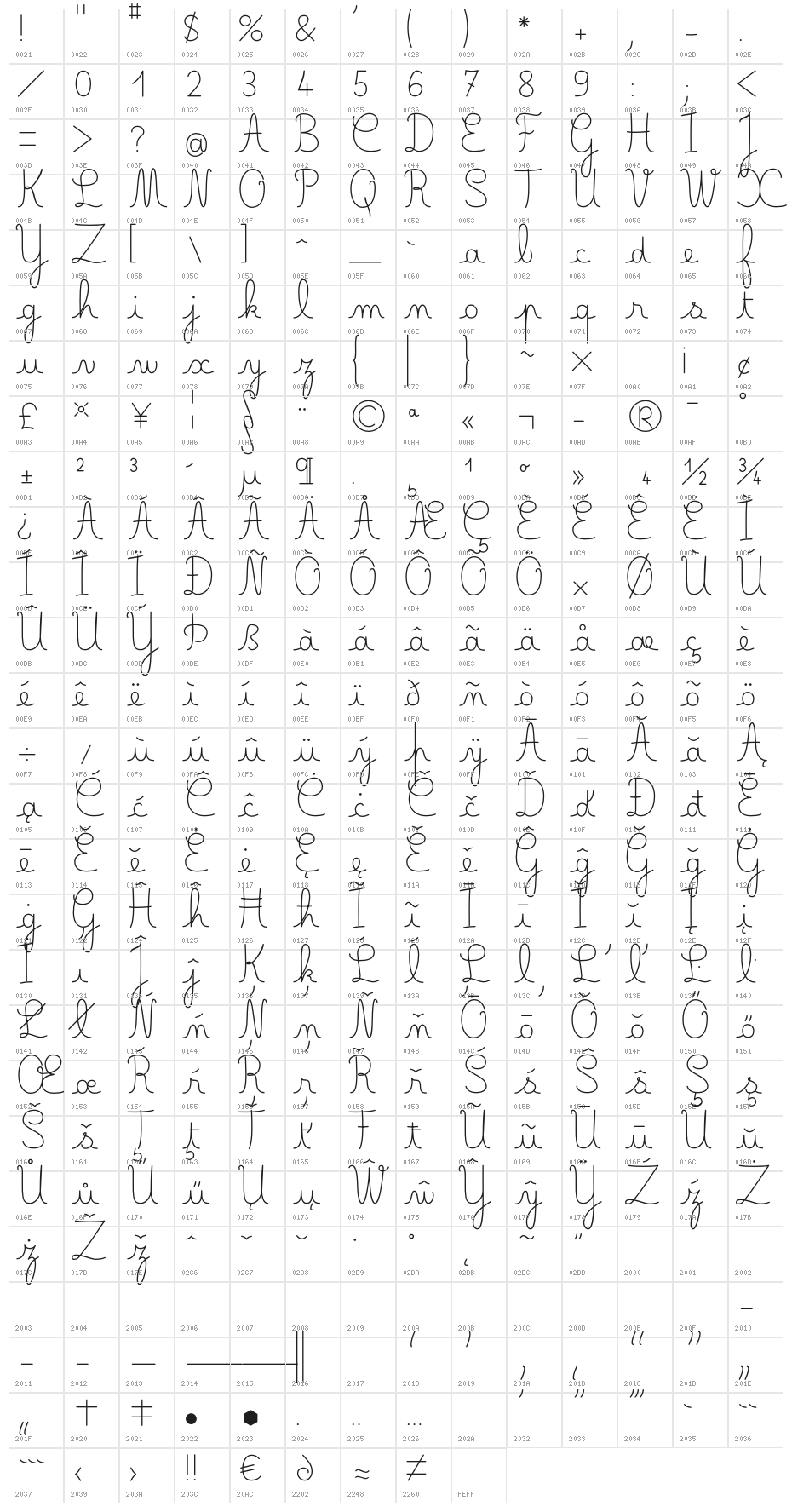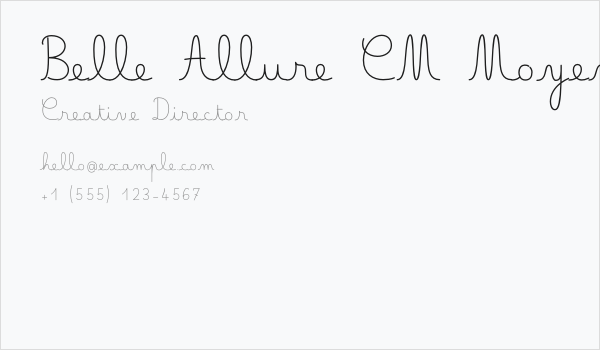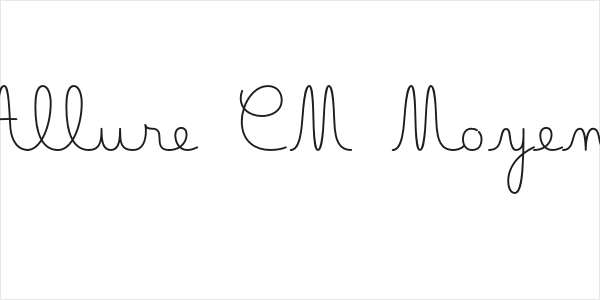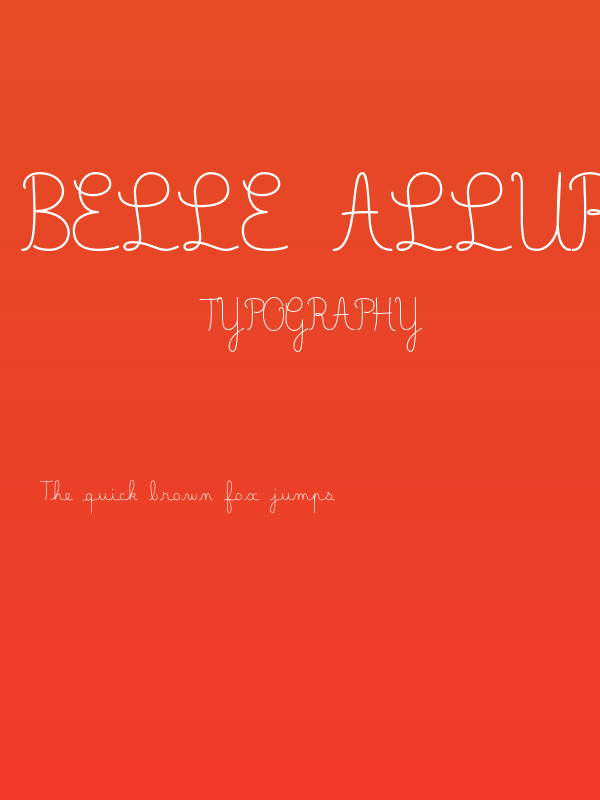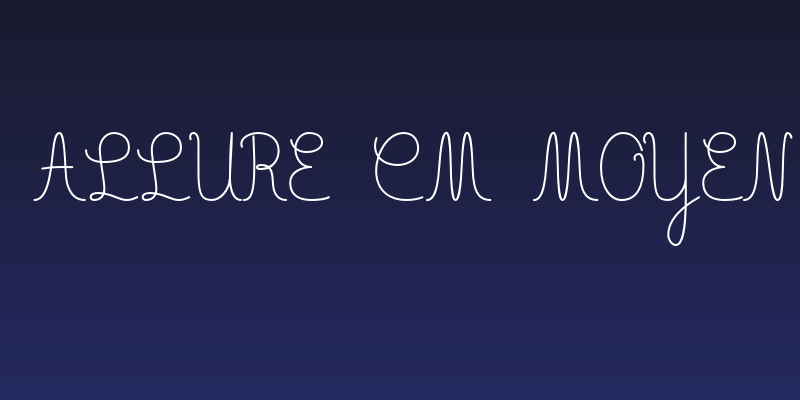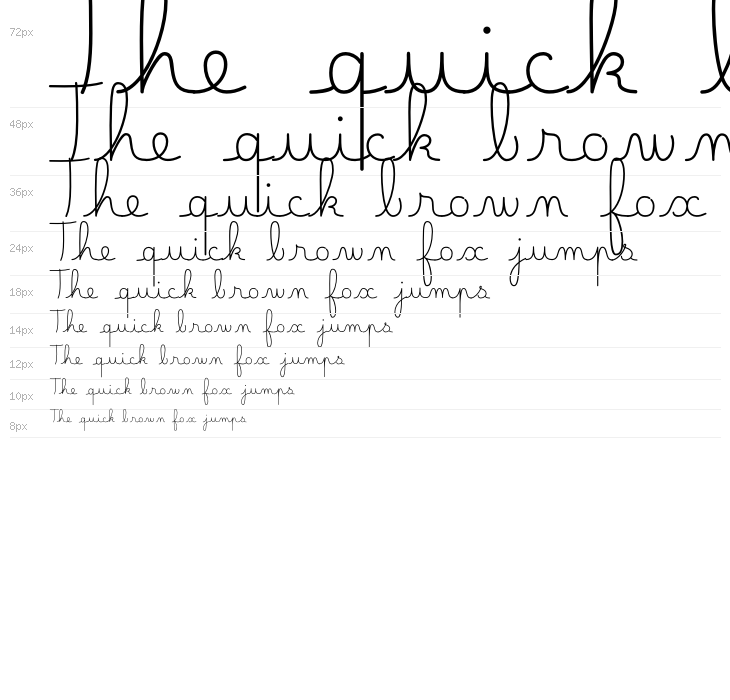
Belle Allure CM Moyen Demo Font
Belle Allure CM Moyen Demo Description
This elegant script font features a flowing, cursive style with delicate loops and swashes. The uppercase letters are tall and graceful, with a consistent stroke width that adds to the font's refined appearance. The lowercase letters maintain a smooth, connected flow, enhancing readability while preserving the font's decorative nature. Numbers and special characters are designed with the same attention to detail, ensuring a cohesive look across all text elements. The font's overall aesthetic is sophisticated and artistic, making it suitable for projects that require a touch of elegance and creativity.
| Overall Style | Elegant, Artistic |
| Use Case | Invitations, Branding, Decorative text |
| Proposed Projects | Ideal for wedding invitations, greeting cards, branding, and elegant logos. |